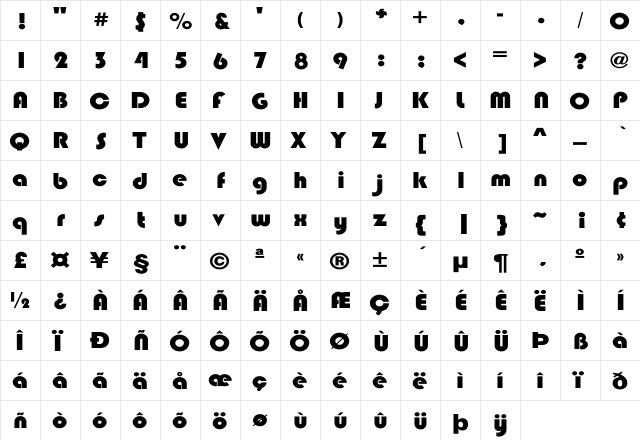
BlippoExt-Heavy Regular
Design Context for BlippoExt-Heavy Typeface
BlippoExt-Heavy takes a measured approach to typography — its balanced proportions and neutral character make it a reliable workhorse for both digital and print work.